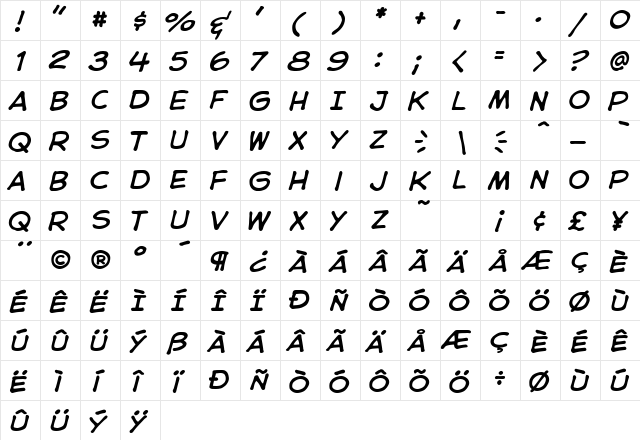
CC Astro City Int Italic
Design Context for CC Astro City Int Typeface
CC Astro City Int takes a measured approach to typography — its balanced proportions and neutral character make it a reliable workhorse for both digital and print work. The dynamic lean of this cut emphasises speed and emphasis in any layout.
Pro Tip: Try CC Astro City Int for annotation and caption copy alongside an upright companion — the contrast in angle creates a dynamic but ordered typographic system.